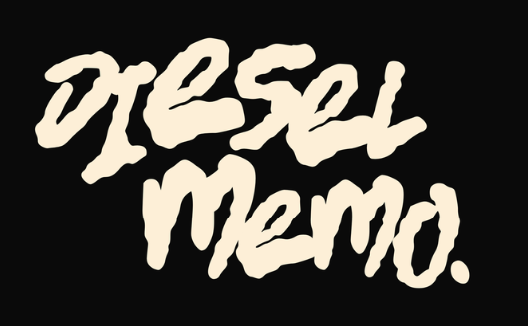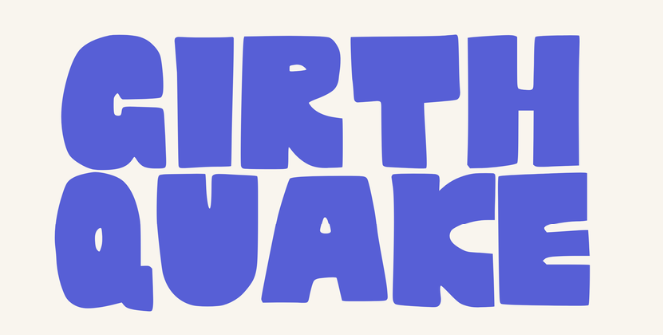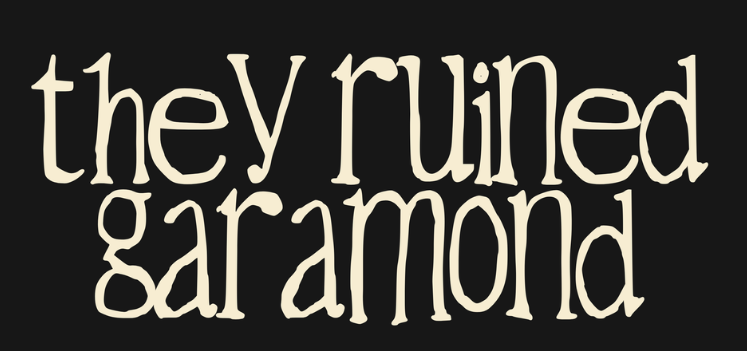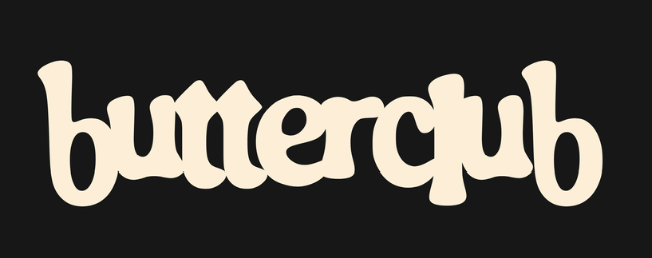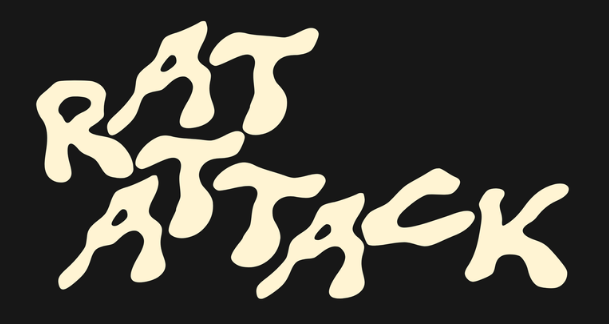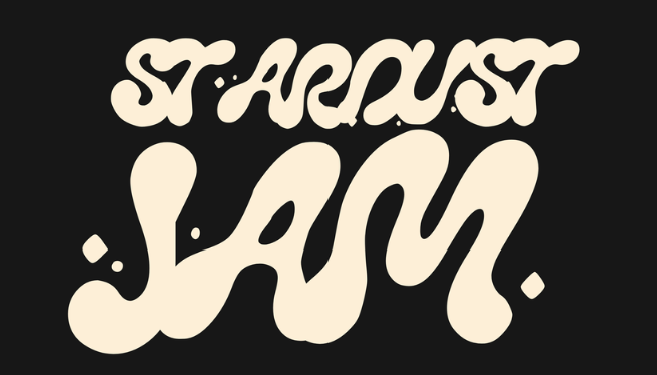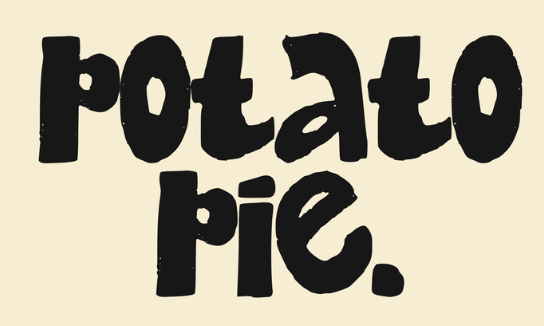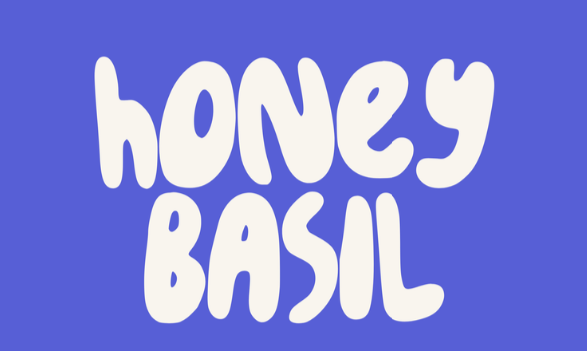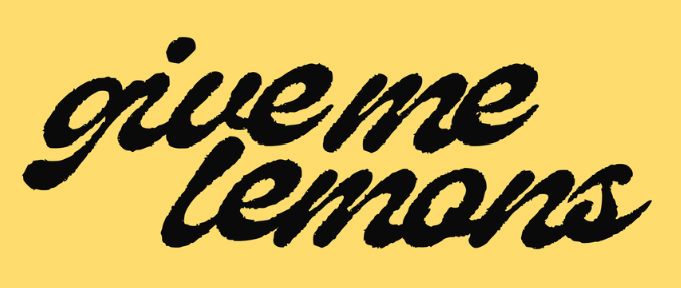
“They are not here to quietly sit in the corner.
They are here to make the design actually feel like something.…“
If you’re looking for cool fonts for branding, logo design, packaging or creative projects, I know the struggle.
I kept finding it hard to find the kind of weird, playful fonts I actually wanted to use, so I started making my own.
These are 15 of the ones that have become the most popular with designers and artists so far.
1. Butterclub
Butterclub is soft, squishy and a bit ridiculous in the best way.
It has that bubbly retro feel that works really well for packaging, logos, food branding, posters and anything that needs to feel fun without looking too polished.
Basically, if your design feels a bit boring, Butterclub will probably sort it out.
Plump Riot is chunky, wobbly and slightly unhinged.
It feels retro, playful and very good at taking over a layout without asking permission.
Perfect for bold branding, beauty packaging, music graphics, posters and anything that needs a big weird title slapped across it.
Unfinished Business looks exactly how it sounds.
A bit messy, a bit unfinished, but somehow that is the whole point.
It works really well for handmade brands, playful packaging, editorial graphics and anything where perfect typography would actually make it worse.
There is no delicate way to describe Girthquake.
It is big. It is chunky. It is loud.
This is one for packaging, logos, merch, posters and anything where you want the typography to do most of the talking.
Custardo is basically a happy little blob in font form.
Round, retro, thick and very easy to imagine on a snack packet or some unnecessarily cute branding.
Great for food and drink, kids brands, playful packaging and loud colourful designs.
Stardust Jam is for when your design needs to look like it fell out of a weird little seventies cosmic dream.
It is starry, soft and slightly psychedelic without becoming impossible to use.
Perfect for music, fashion, beauty, posters and retro inspired branding.
Honey Basil is squishy, friendly and a little bit odd.
It feels handmade but still nice and chunky, which makes it really useful for packaging and branding where you want personality without going full chaos.
Very good for food, lifestyle brands, social graphics and colourful logo ideas.
Potato Pie is chunky, wonky and looks like it was drawn with zero concern for keeping anything straight.
Exactly why I like it.
It works brilliantly for food packaging, cafés, posters, merch and brands that want to look playful rather than painfully polished.
Moldloaf is weird.
That is the review.
The letters wobble around, feel slightly melted and make even a boring word look much more interesting.
Perfect for experimental branding, packaging, fashion graphics and anything that needs a little bit of visual nonsense.
Rat Attack is rougher, stranger and definitely not here to behave.
It has a punky, grungy feel that works really well for music, streetwear, posters, zines and more alternative branding.
Not for accountants. Probably.
They Ruined Garamond is what happens when a classic serif gets dragged through a sketchbook.
It still has that elegant serif shape underneath, but everything is a little bit off.
Great for editorial design, fashion branding, book covers, art projects and anyone who likes their typography slightly ruined.
Pickle Toast is exactly the sort of font name that tells you what you are getting into.
It is playful, strange and full of personality, which makes it a good fit for packaging, branding, posters and designs that need to feel a bit more unexpected.
A good one for making very normal words look much less normal.
Give Me Lemons is loose, brushy and full of movement.
It has that quick handwritten script feel that looks especially good when you want something energetic without looking too neat.
Perfect for food, drink, lifestyle branding, posters and editorial graphics.
In The Margins looks like the kind of thing you would scribble down when you were meant to be paying attention.
Tall, rough, hand drawn and slightly messy.
It is great for posters, album artwork, packaging, editorial layouts and anything that needs that sketchbook feel.
Diesel Memo is messy, inky and slightly chaotic.
It feels like handwriting that has been photocopied too many times, which is exactly why it works so well.
Perfect for music graphics, fashion, posters, packaging and branding that wants to feel raw rather than polished.
Why weird fonts are actually useful
A good display font does half the personality work for you.
Before you have even chosen colours, photography or illustrations, the typeface is already telling people whether the brand feels playful, retro, loud, weird, soft, handmade or slightly feral.
That is why I love fonts like these so much and truth be told, I made these all by hand!